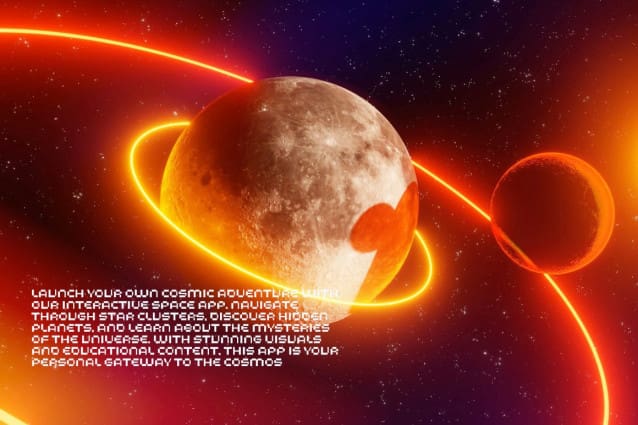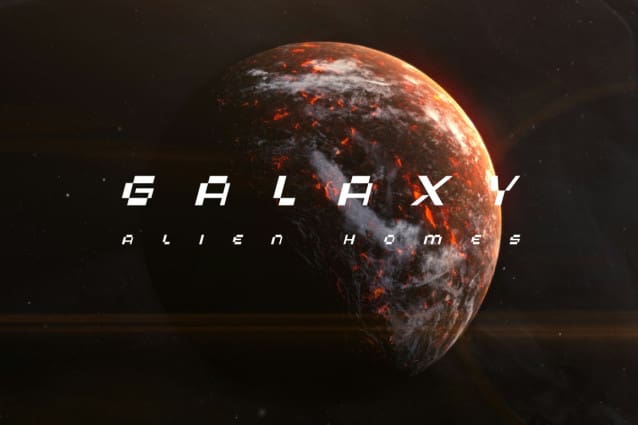
Aeogo Box Font
Aeogo Box Font, this unique font blends futuristic, retro, pixel, and sports styles, making it versatile for various themes. Complete with special characters and swashes, your typography will stand out like never before! Perfect for displays, headlines, posters, flyers, logos, UI, motion graphics, and more.